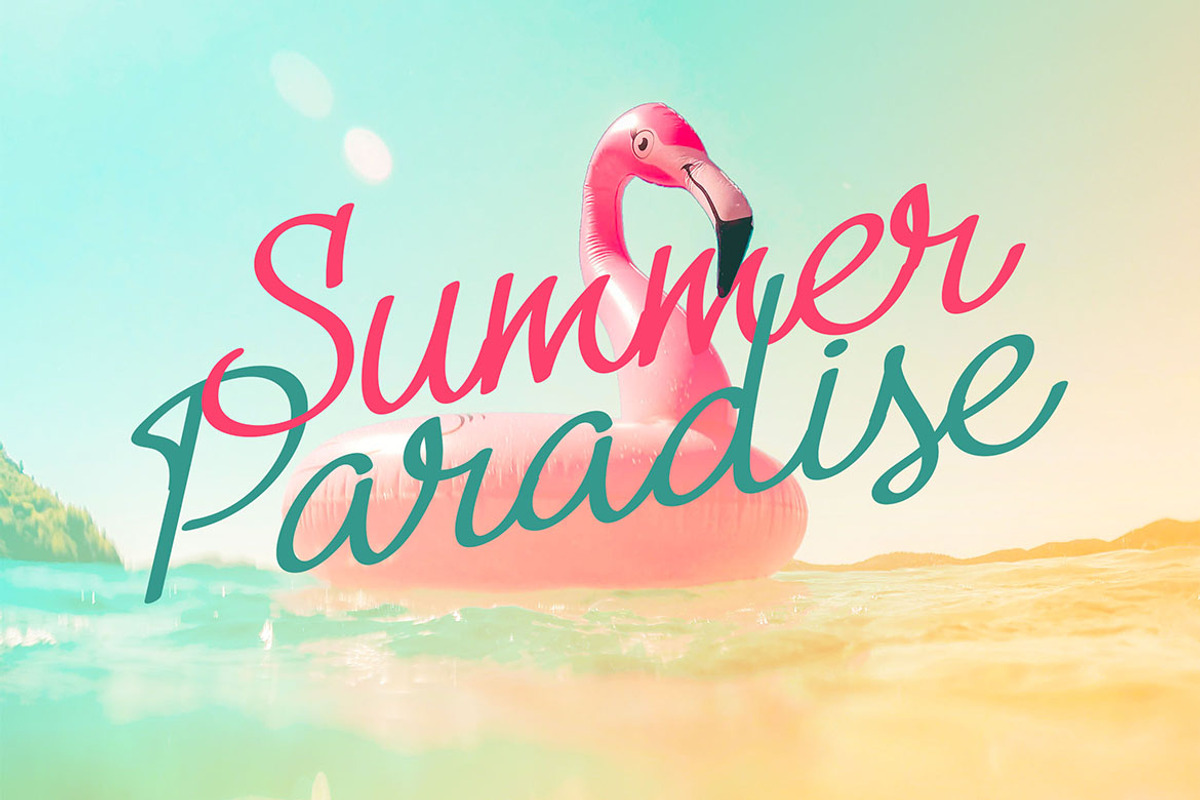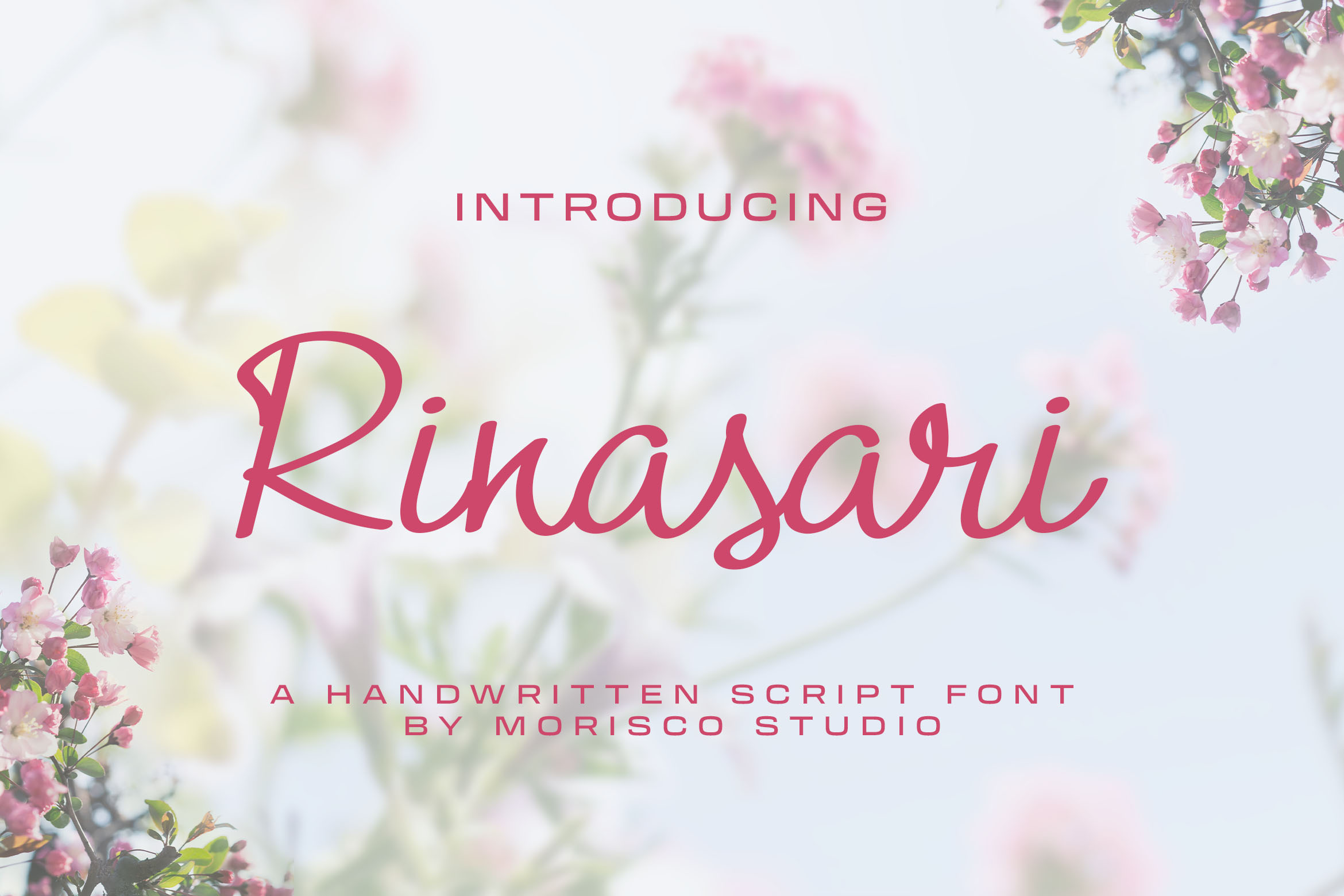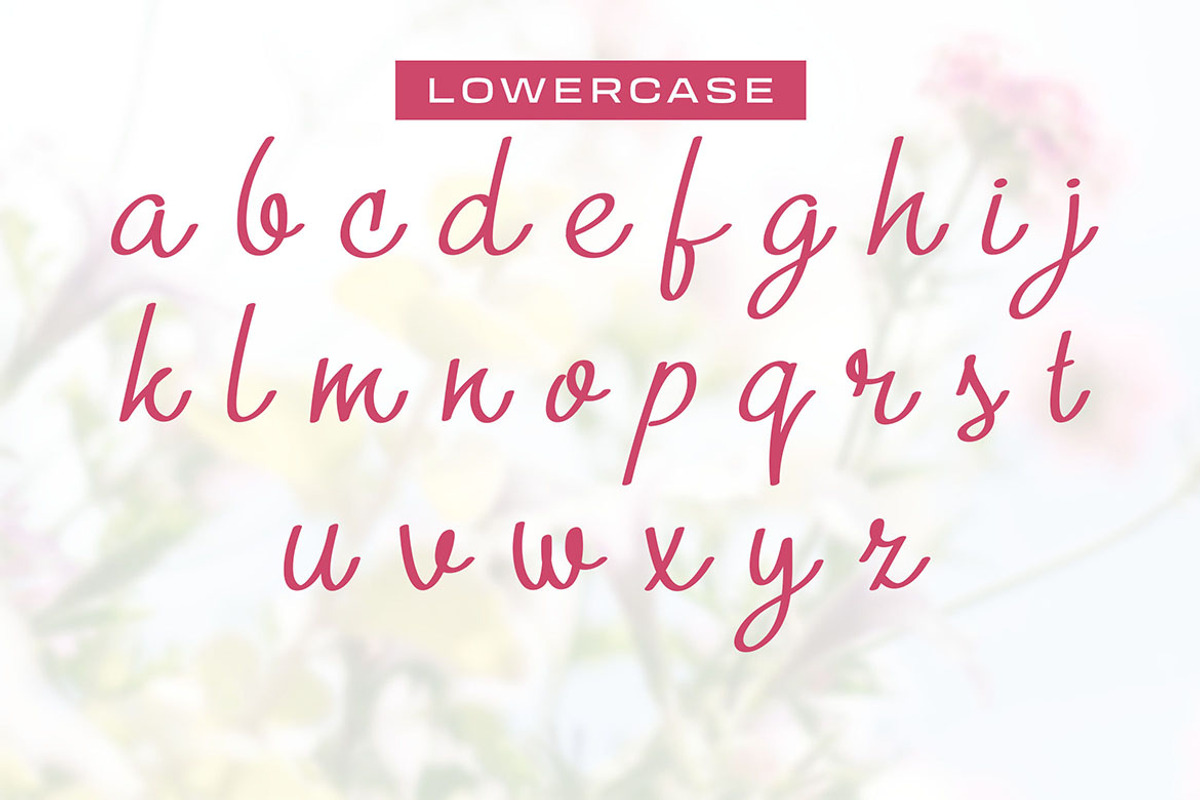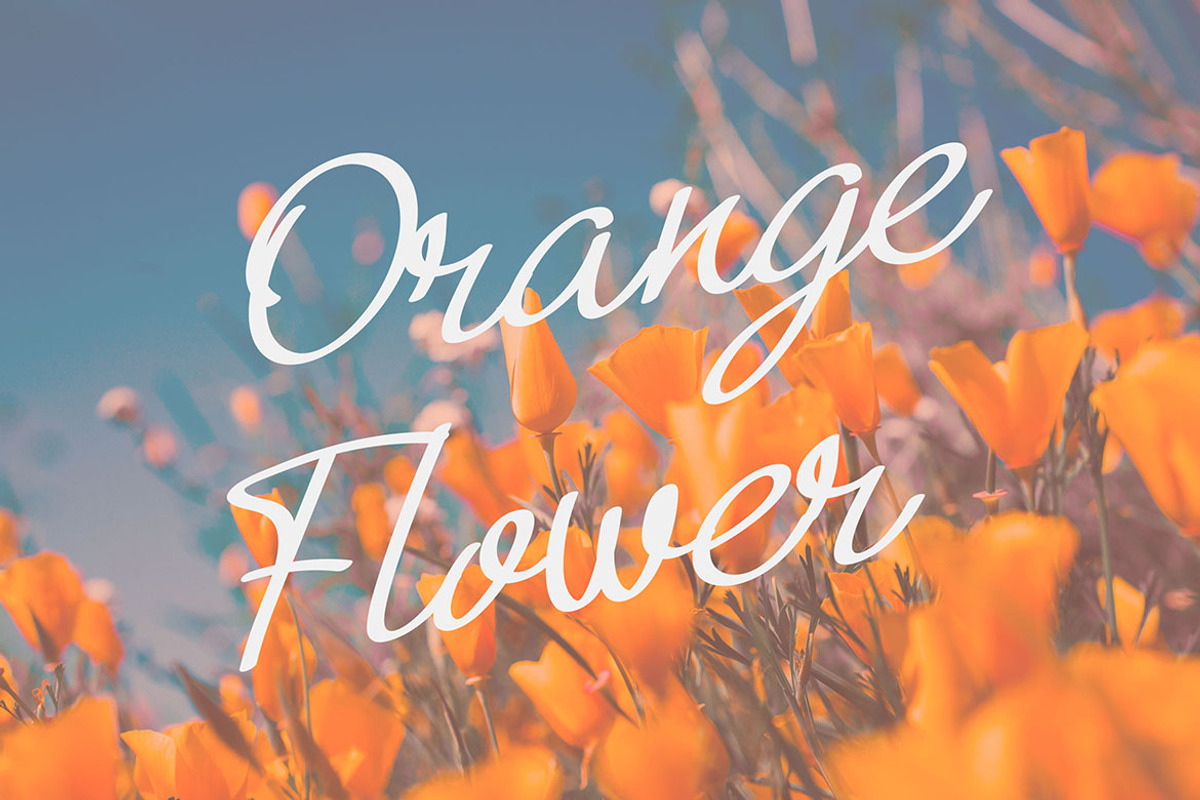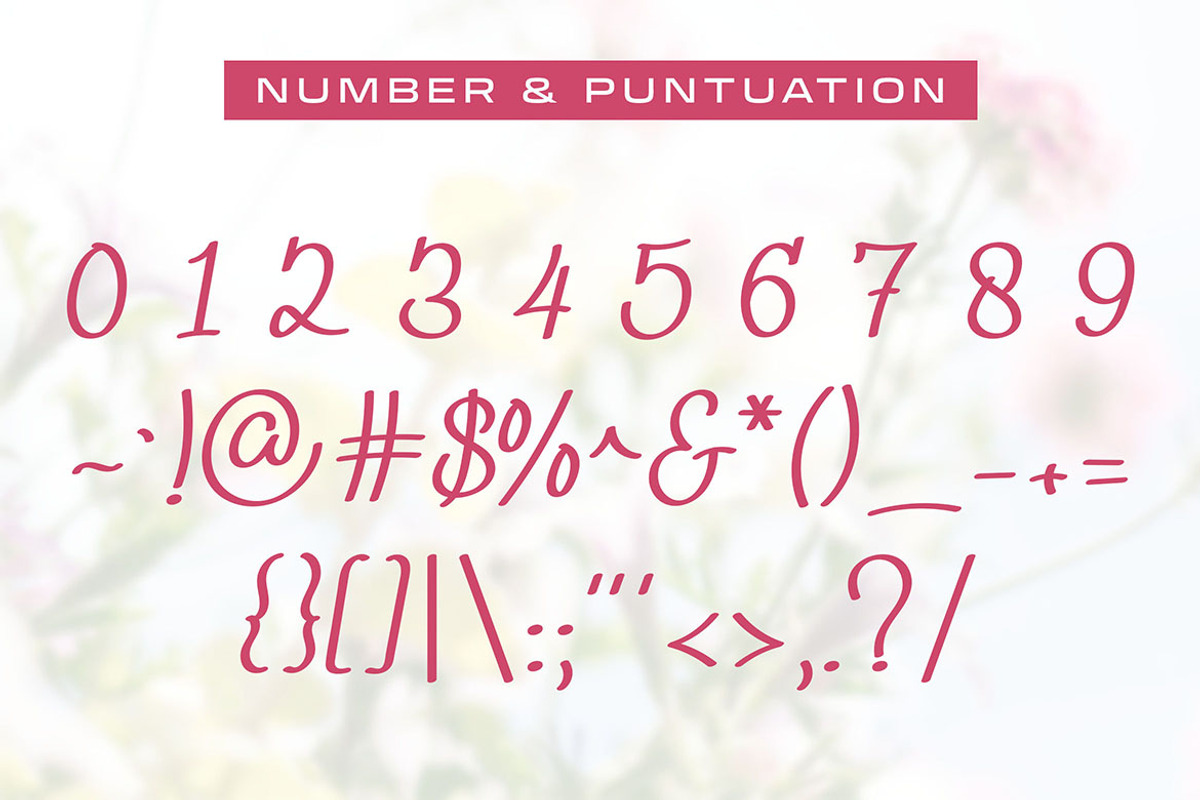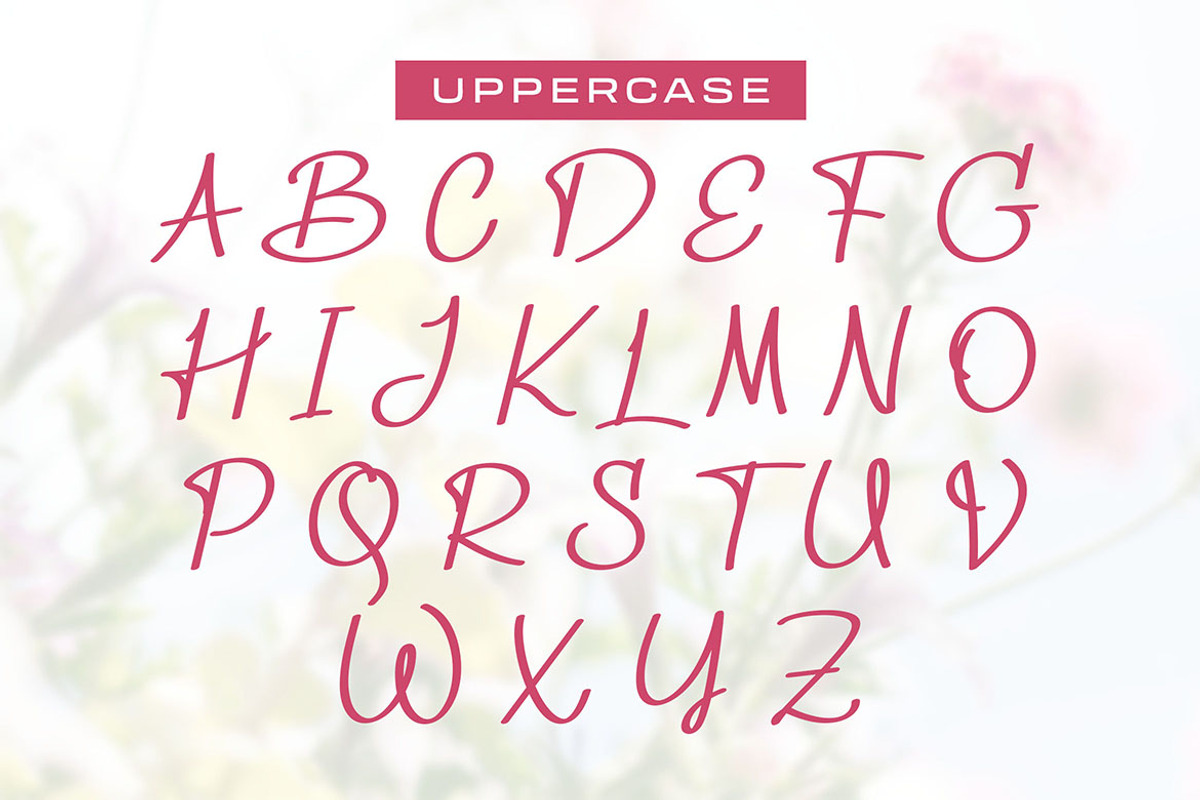
Rinasari - Handwritten Script Font
Rinasari is a Handwritten typeface with a unique character designed by Morisco Studio. This typeface is well-suited for headlines and any project, like branding, print templates, logos, and more.
* Uppercase & Lowercase
* Symbols & Punctuation